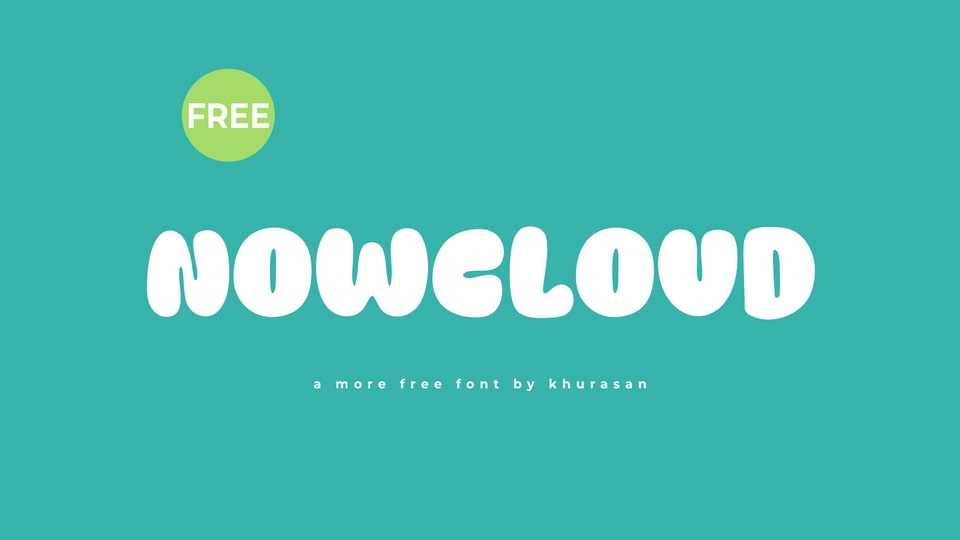
Download Nowcloud font, a puffy and cute hand-crafted typeface that adds a touch of whimsy and charm to your designs. It features rounded, balloon-like letterforms with soft edges and delightful details